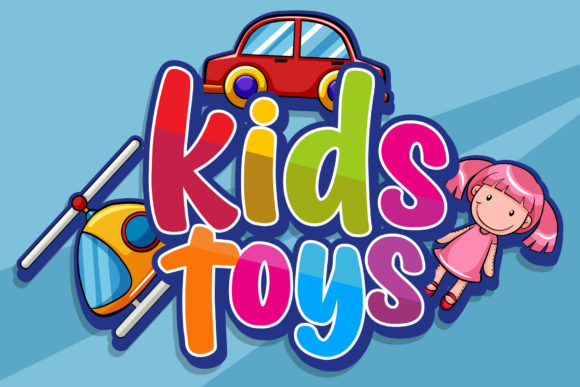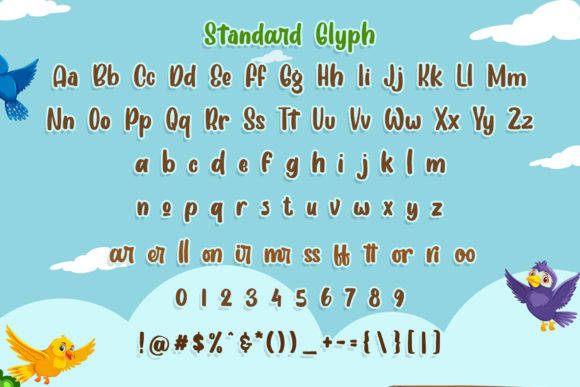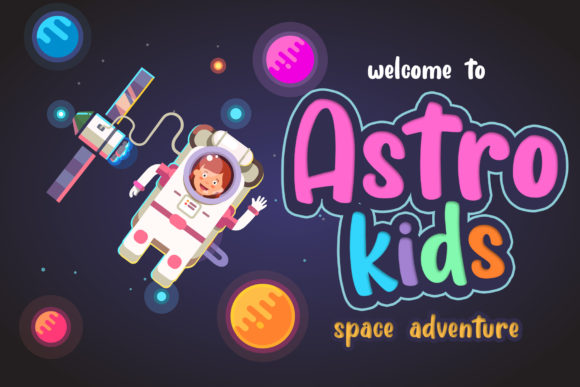
About Cherry Bird Font
Cherry Bird is a bold and smooth handwritten font. It has a playful feel that will turn any crafting idea into a true standout.